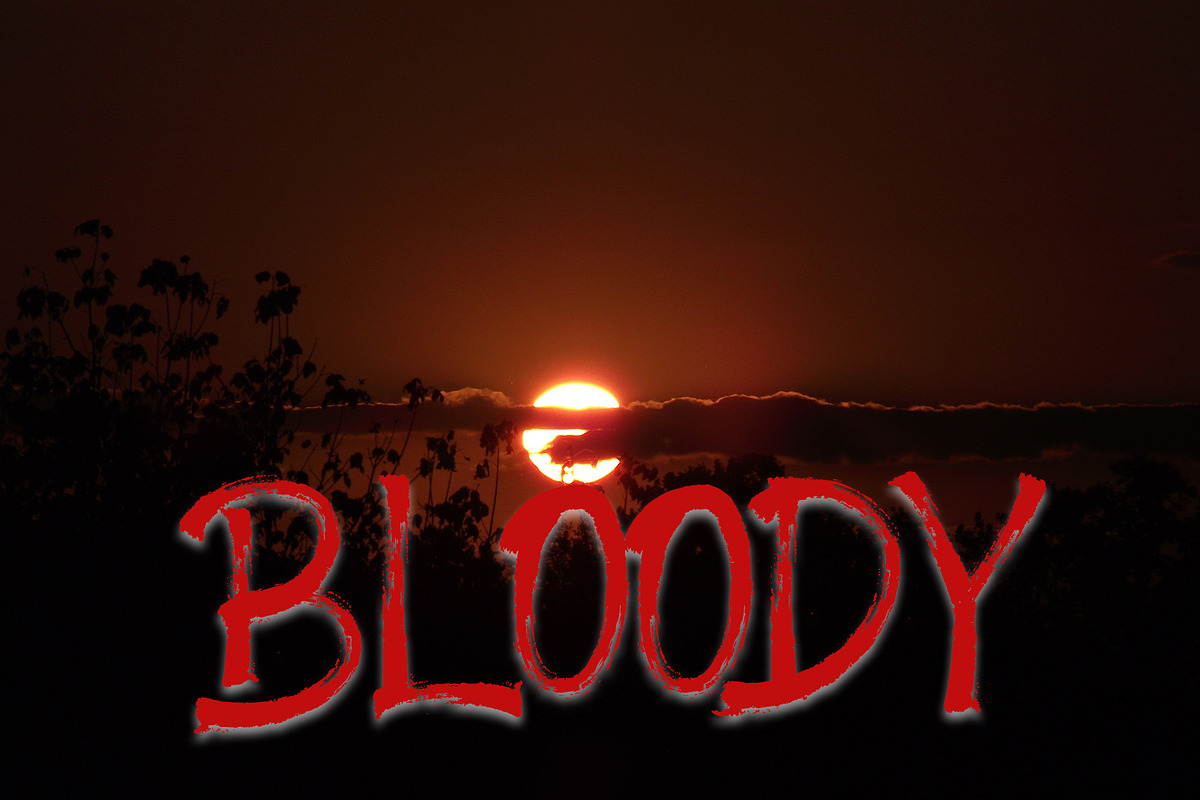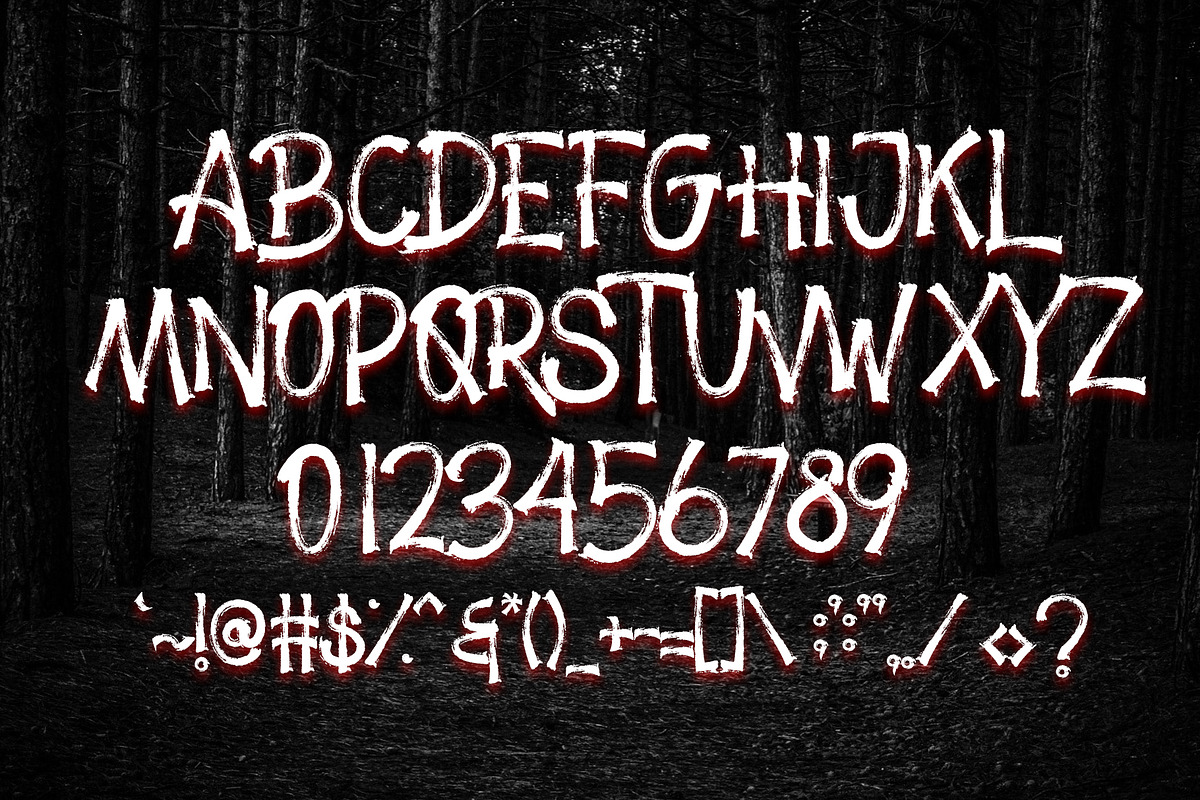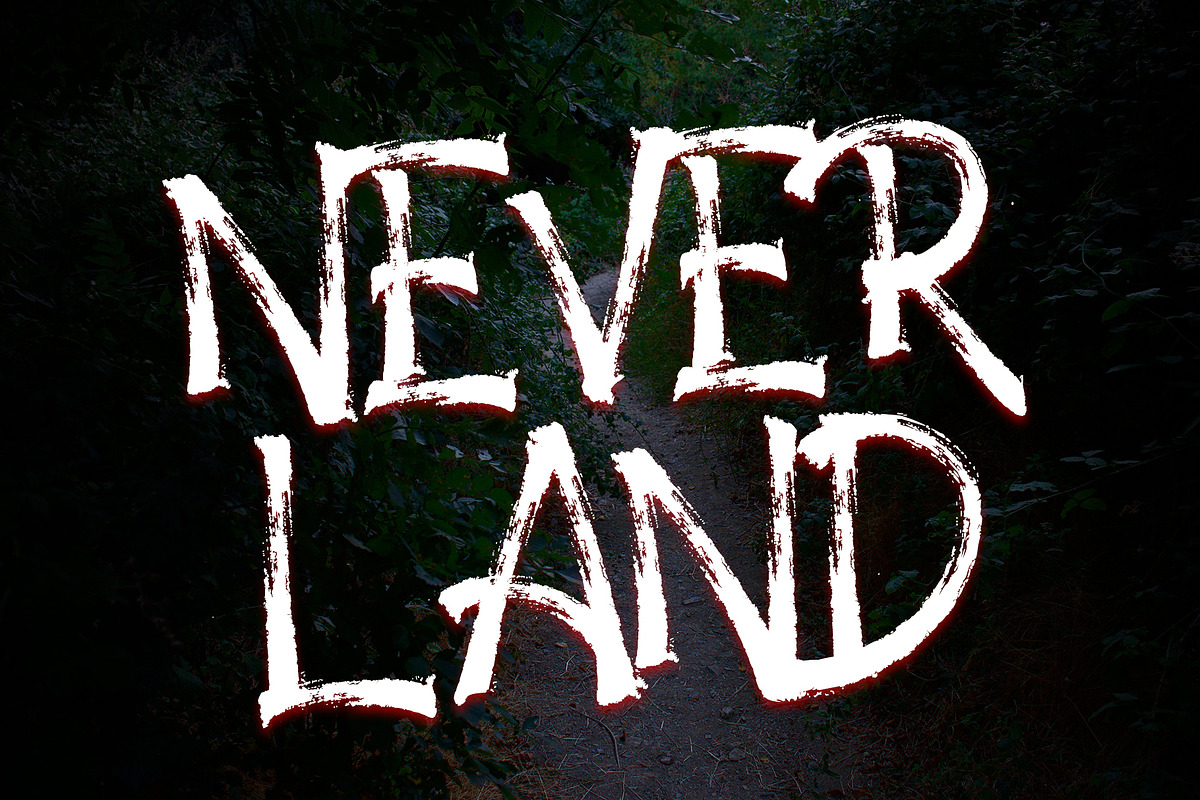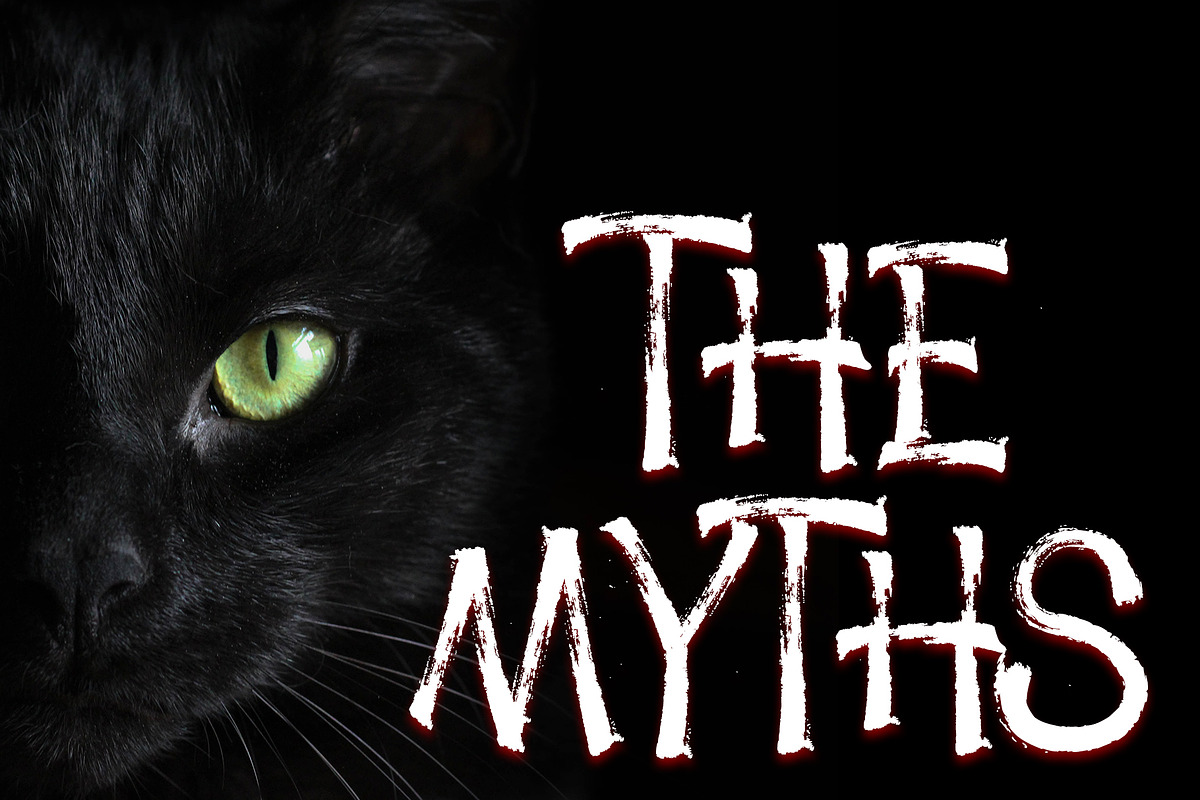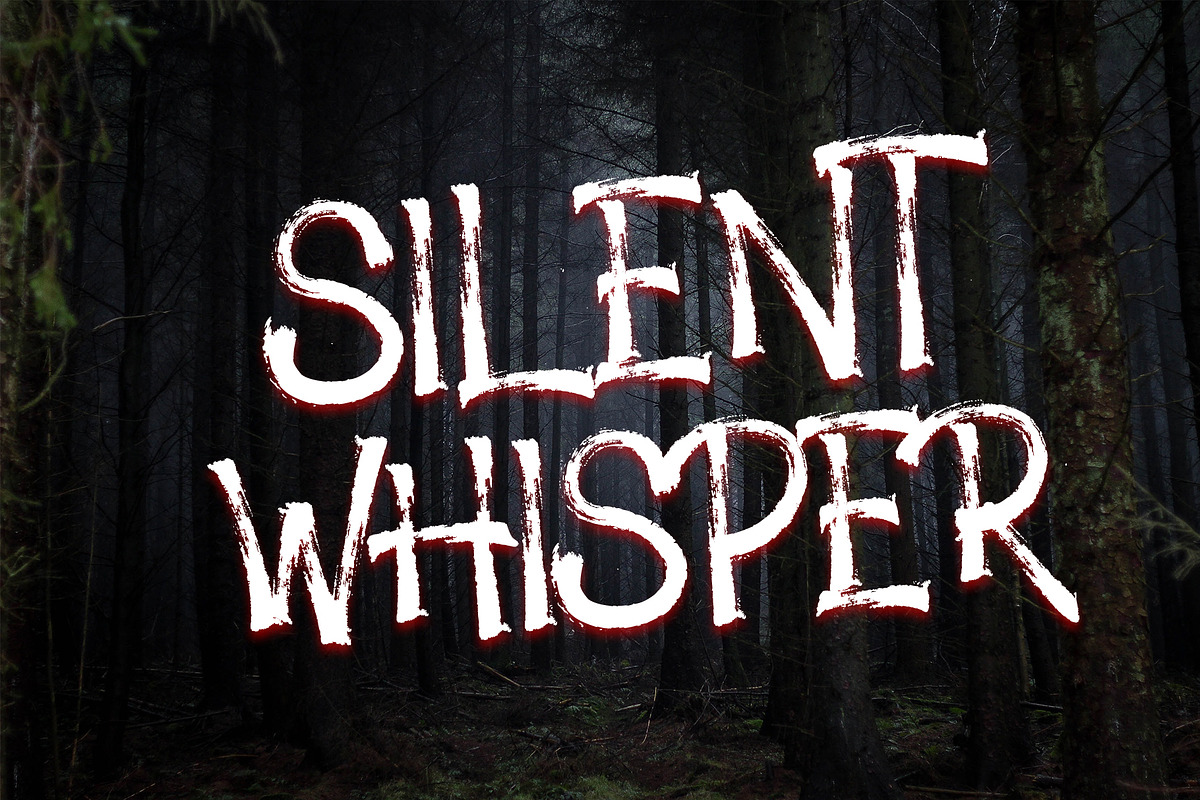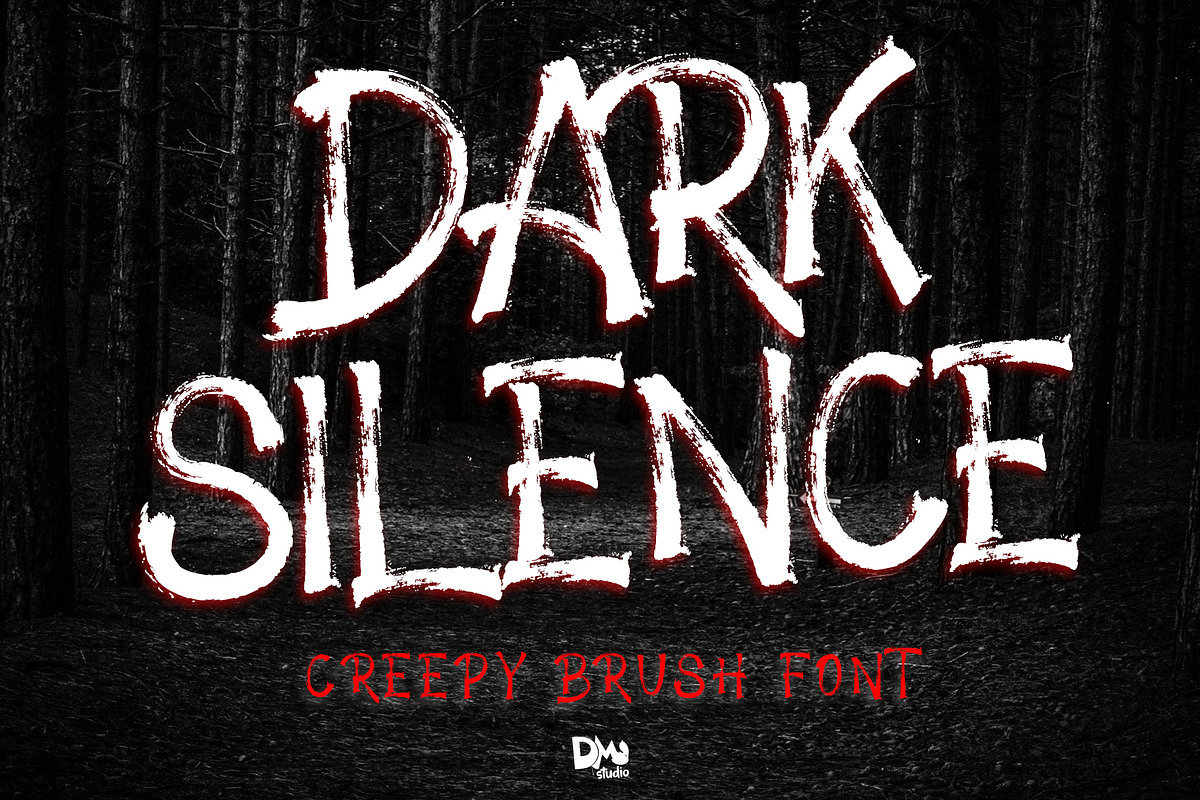
Dark Silence - Creepy Brush Font
Dark Silence is a creepy brush font with rough texture. Make your design more frightening!
- All in Caps
- Numeric
Dark Silence - Creepy Brush Font by Dm Studio fits naturally into Branding, posters, packaging, typography.